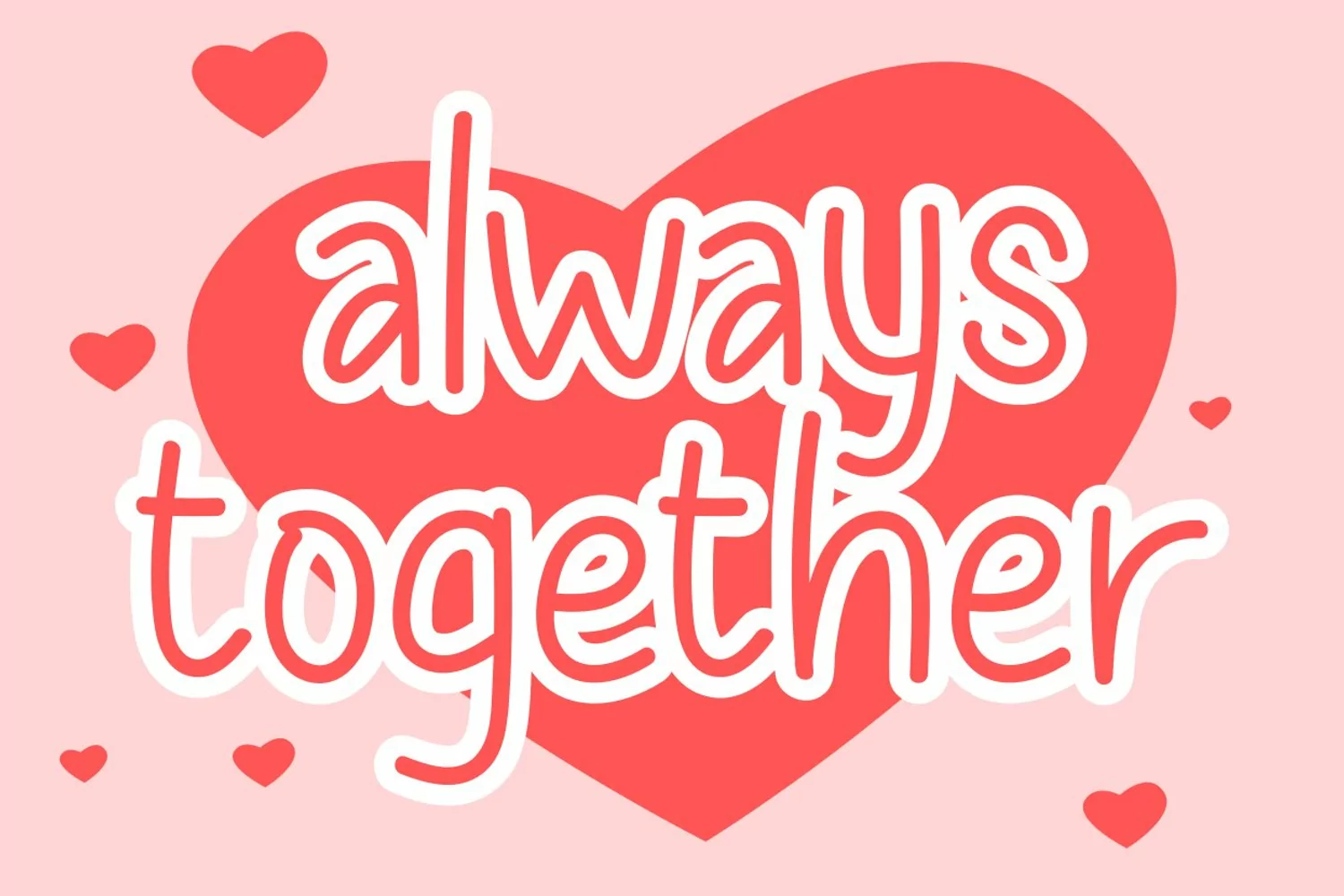
Happy Garden a new fresh & simple handwritten font style! So beautiful on invitation like greeting cards, branding materials, business cards, quotes, posters, and more!!
HappyGarden